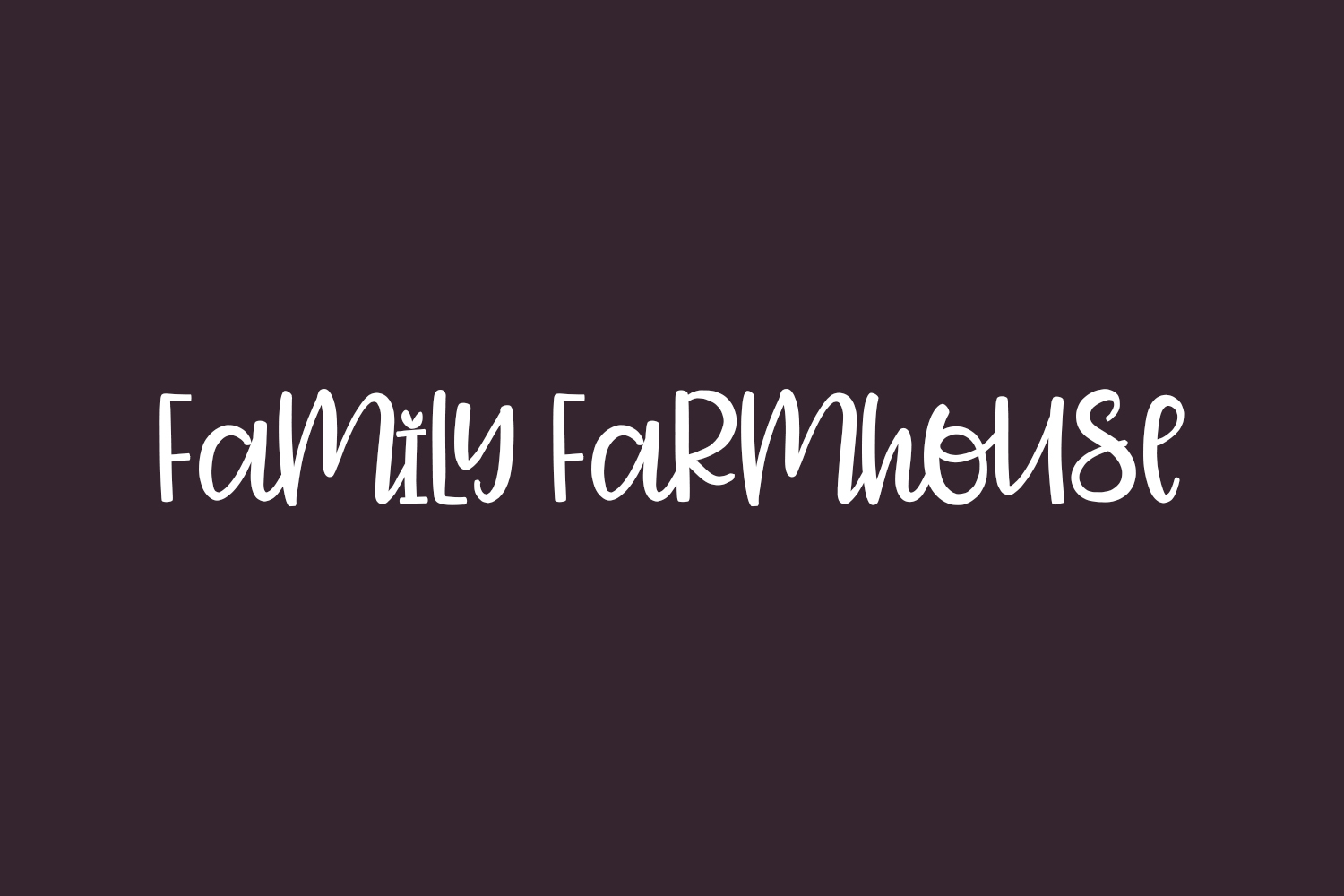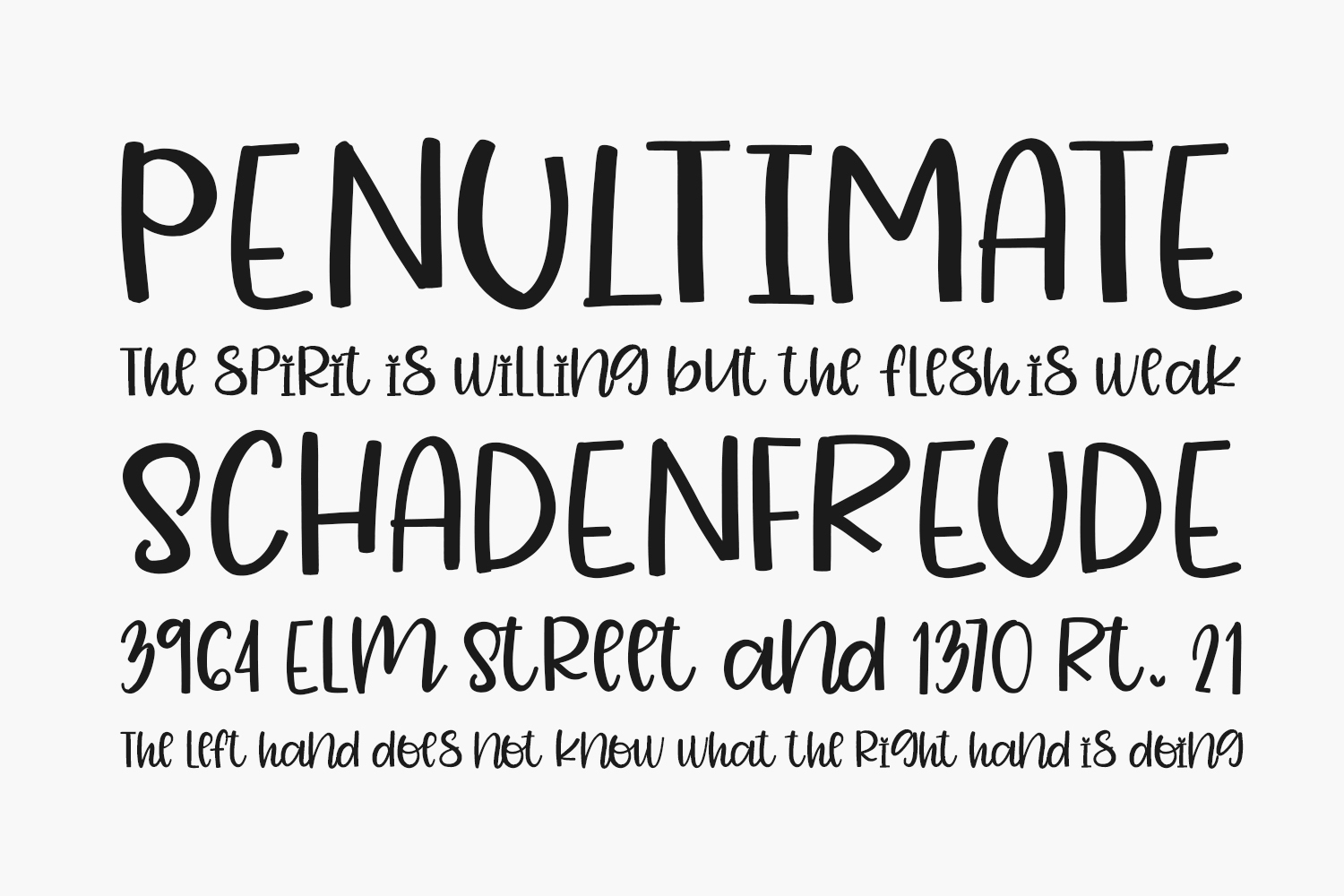
Family Farmhouse – Free Hand‑Drawn Display Font with Rustic Charm
Family Farmhouse is a playful handwritten display font by Goodrichees that brings rustic warmth and personality to your designs. Featuring hand-drawn letterforms with charming imperfections, it’s perfect for creating eye-catching logos, branding, packaging, posters, quotes, and social media graphics. Available in TTF and OTF formats (~136 KB), Family Farmhouse is free for personal use, with a commercial license available via donation or purchase. Each character adds a unique touch, making your designs feel authentic and welcoming.
Why Choose Family Farmhouse?
- Rustic Hand-Drawn Style: Casual strokes and uneven lines deliver warmth and a handcrafted feel.
- Friendly & Versatile: Works beautifully in logos, quotes, packaging, home decor, and more.
- Light & Approachable: Its tall, narrow forms offer charm without overwhelming the layout.
Where to Use Family Farmhouse?
- Branding & Logos: Ideal for boutique labels, artisanal products, and family‑oriented brands.
- Quotes & Signage: Adds warmth to posters, prints, wall art, and event signs.
- Packaging & Labels: Suited for jars, candles, craft goods, and DIY packaging.
- Social Media Graphics: Charming for Instagram posts, Pinterest pins, and YouTube titles.
- Event Materials: Great for invitations, banners, farm‑style wedding or party décor.
Design Tips with Family Farmhouse
Use Family Farmhouse in medium to large sizes (24 pt and up) to highlight its rustic charm. Pair it with clean sans-serifs like Cream or Modeco to maintain readability. Soft earth tone palettes and minimal textures complement its handcrafted spirit. It works beautifully layered over wood textures or soft pastel backgrounds—just give it breathing room for maximum impact.
- Glyphs: Uppercase (A–Z), lowercase (a–z), numerals, punctuation, basic Latin characters.